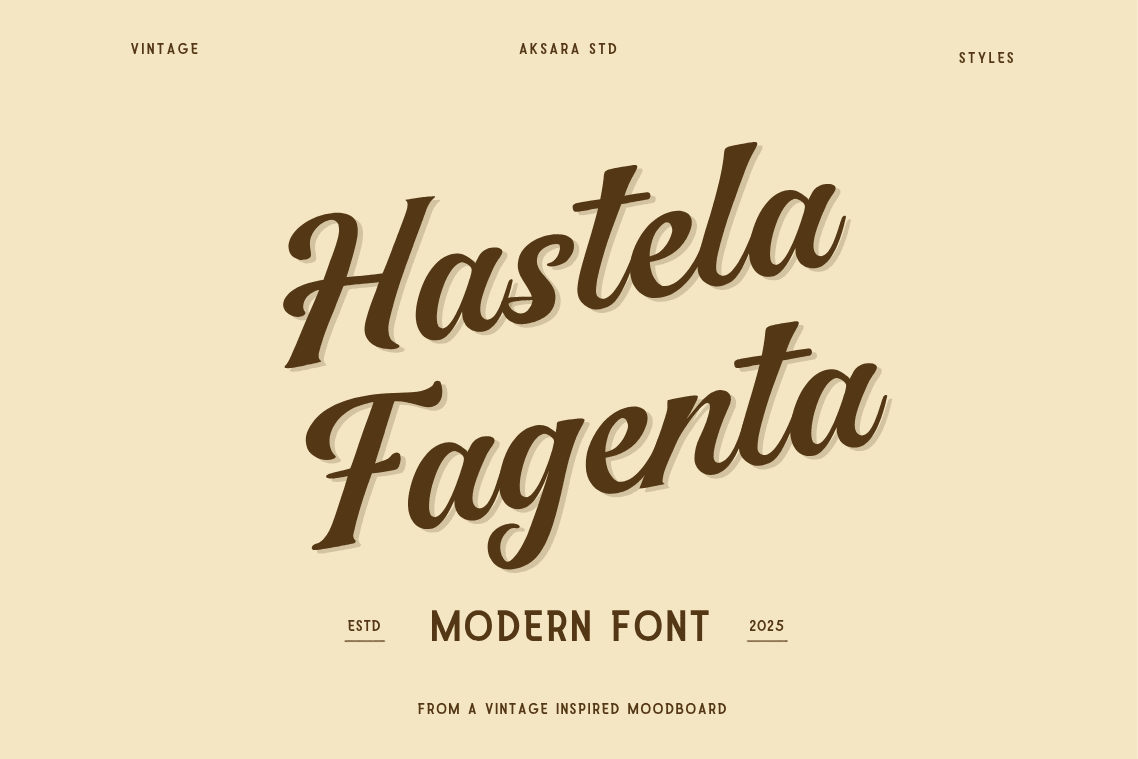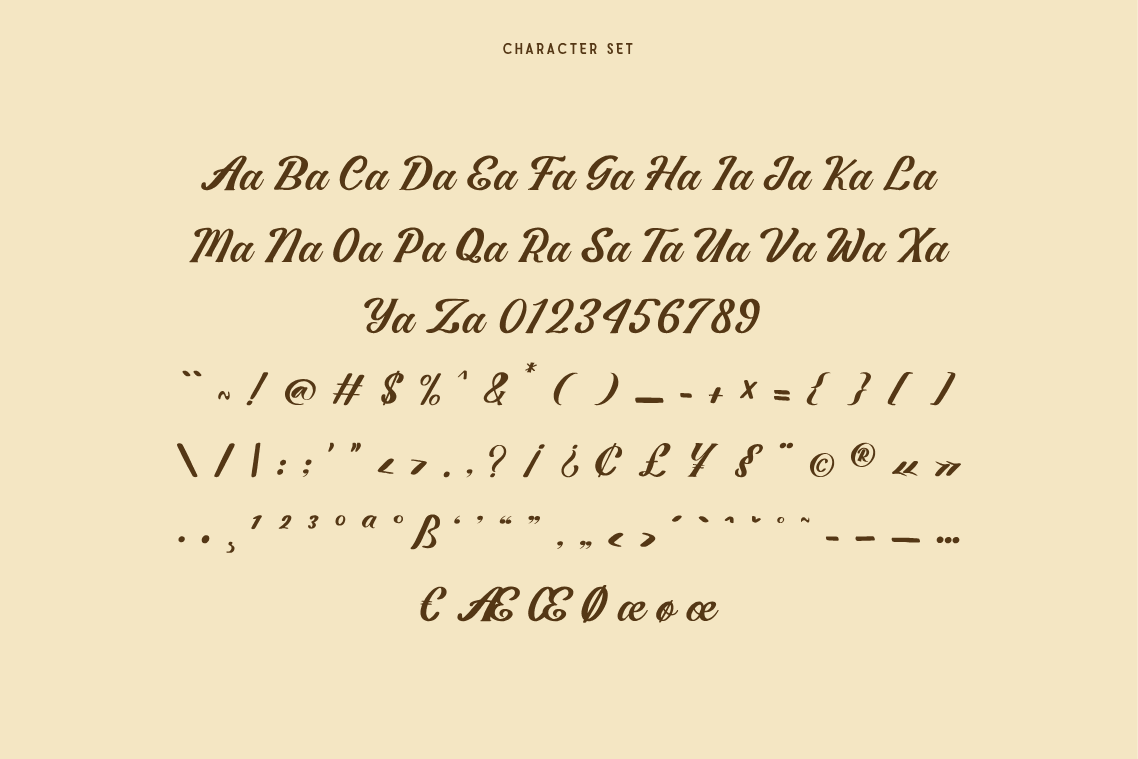
Designed for logos, product packaging, labels, café branding, restaurant identities, apparel designs, posters, merchandise, social media graphics, and display typography, Hastela Fagenta delivers a distinctive retro presence that feels both professional and full of personality. Its bold letterforms help your designs stand out while preserving the warmth and character of traditional hand-lettered craftsmanship.
Alternate Characters
Ligatures & Stylistic Features
Multilingual Support